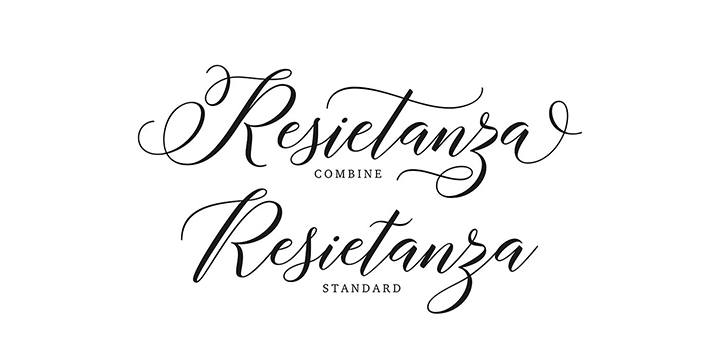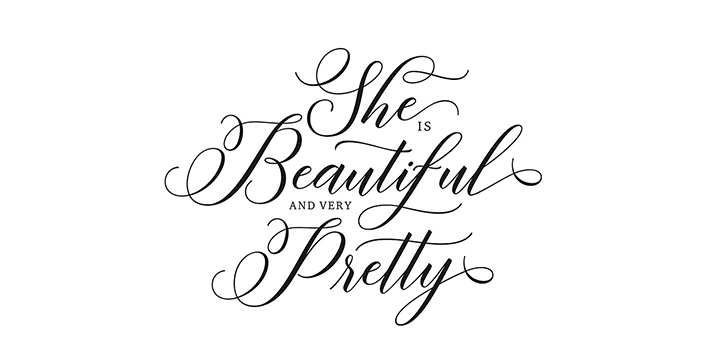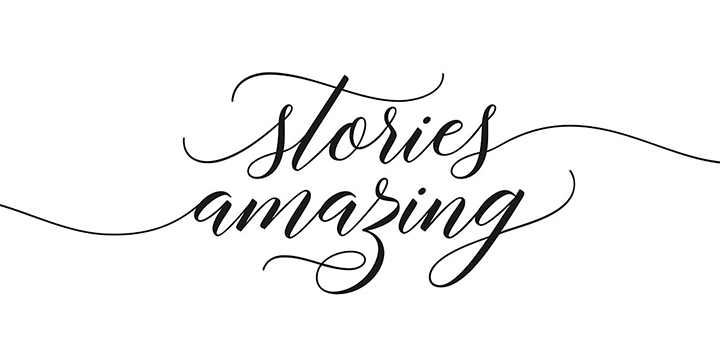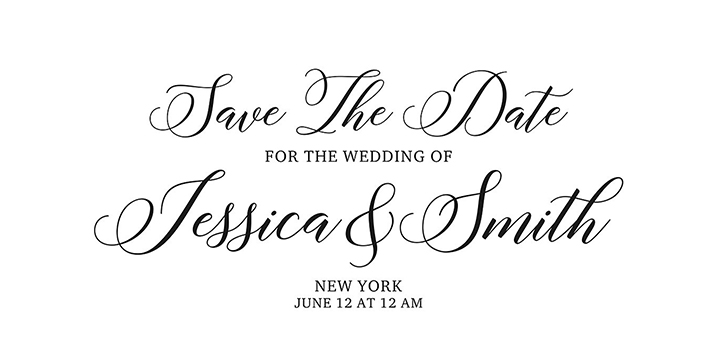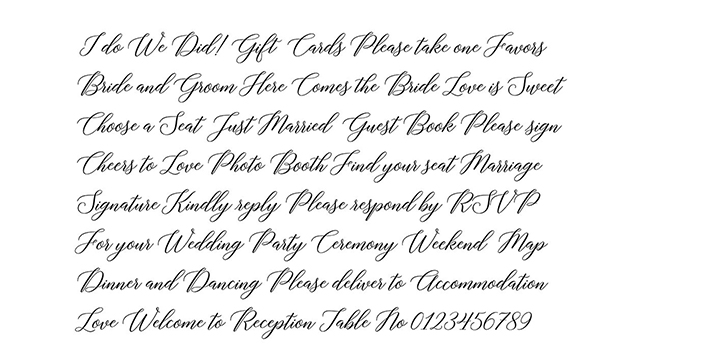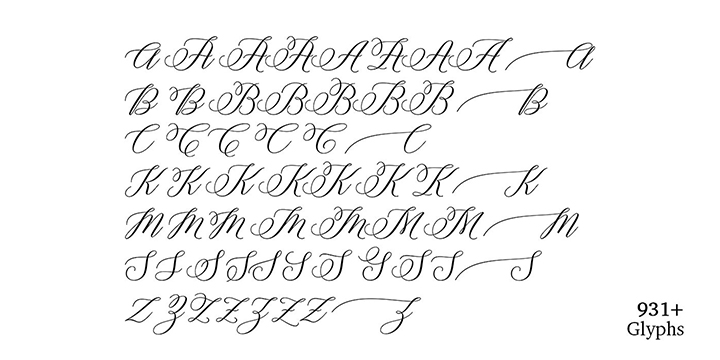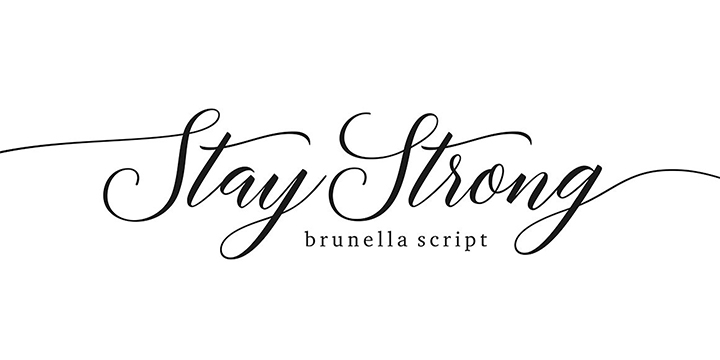
Brunella
Brunella Script is a modern calligraphy font with a dancing baseline and a clean, classic and elegant touch.
It can be used for various purposes such as headings, signature, logos, wedding invitations, t-shirt, letterhead, signage, lable, news, posters, badges etc.
Brunella Script features 931 total glyphs with 575 alternate characters including OpenType Stylistic alternates, ligatures and international language support.